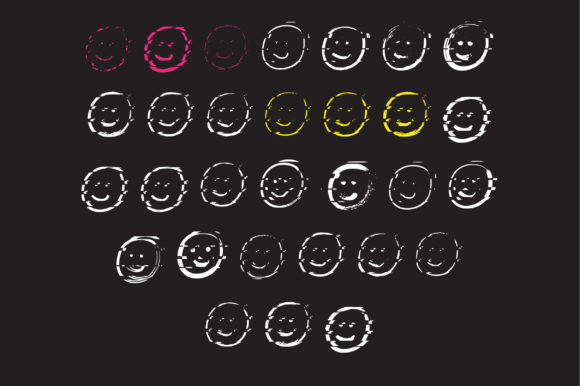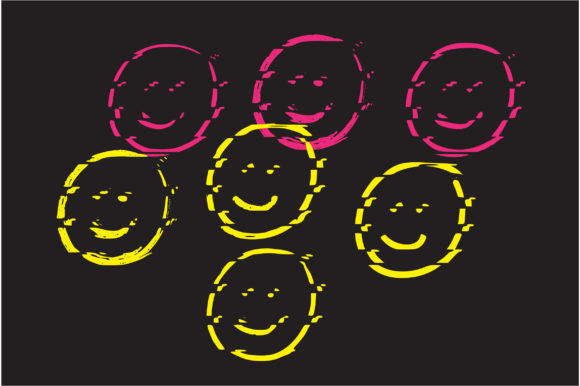
Introduction to Glitch Smilies Font
Have you ever found yourself stuck in a creative rut, scrolling through social media for inspiration, and stumbled upon a post that makes your heart skip a beat? For designers, it’s those moments of serendipity that spark new ideas and fuel our passion for innovative projects. For me, it was discovering the Glitch Smilies Font, a quirky, pixelated dingbats font that added a whole new level of fun to my designs.
With its unique, distorted shapes and high-quality graphics, the Glitch Smilies Font is a design resource that’s sure to elevate any creative project. Whether you’re working on a logo, social media graphic, or website design, this font’s versatility and playfulness make it a valuable addition to your toolkit. Plus, with a transparent background, you can easily incorporate it into your designs without any fuss.
Key Features of Glitch Smilies Font
- Unique, glitch-inspired design for a creative project, offering a distinctive twist to traditional emoticons.
- Transparent background, allowing for seamless integration into various design backgrounds and compositions.
- Perfect for adding a touch of nostalgia and retro flair to your design projects, from digital art to graphic design and beyond.
Honest Review: Glitch Smilies Font
I recently stumbled upon the Glitch Smilies Font and was excited to dive in. As a designer, I’m always on the lookout for fresh design resources to elevate my creative projects. The free download option was a major draw, and I was eager to see if this font lived up to its promise.
One of the standout features of the Glitch Smilies Font is its unique, high-quality design. The characters are intricate and detailed, with a clear focus on creating a glitchy, distressed aesthetic. ✨ The transparent background is also a nice touch, allowing for seamless integration into various design contexts.
Here are some of the things that work well with the Glitch Smilies Font:
- Unique, glitchy aesthetic
- Some characters may not display correctly in certain fonts or environments ⚠️
- The font may be too busy or overwhelming for certain design projects
Overall, I was impressed with the Glitch Smilies Font, and I think it would be a great addition to any designer’s toolkit. While it may not be perfect, its unique design and high-quality execution make it a valuable resource for creative projects.
Some common use cases for the Glitch Smilies Font include creating social media graphics, designing marketing materials, and adding a creative touch to presentations. Tips for getting the most out of the font include experimenting with different font sizes, colors, and effects, and using the font in combination with other design elements to create a visually appealing design.
Q: What is the resolution of the Glitch Smilies Font?
The Glitch Smilies Font is available in high resolution, making it perfect for printing and digital applications. The font is designed to be clear and legible at various sizes, from small icons to large headings. With its high-quality design, the Glitch Smilies Font is an excellent choice for any design project.